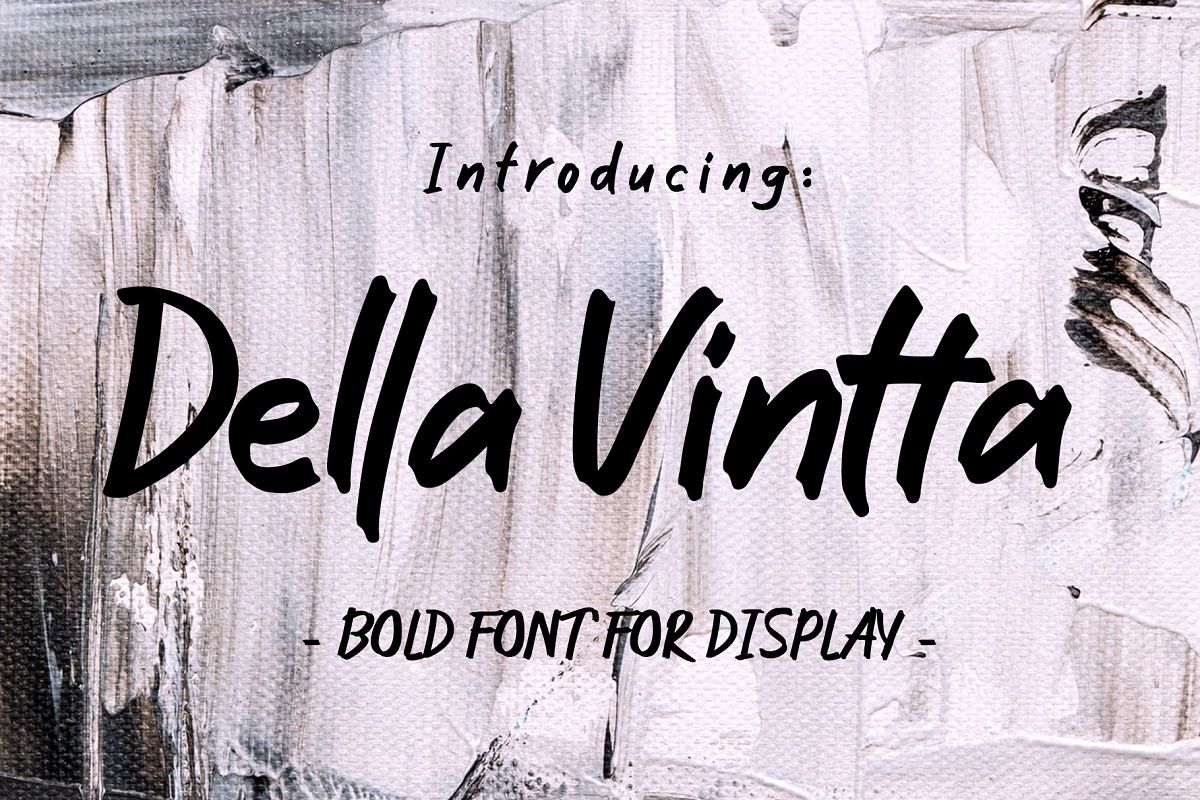
Della Vintta
Della Vintta is a strong handwritten font for display. It will give natural handwriting with good legibility. Suppoeting some ligatures and international character. Suitable for Poster, Brochure, magazine and any other purposes which need strong and eye catching title.